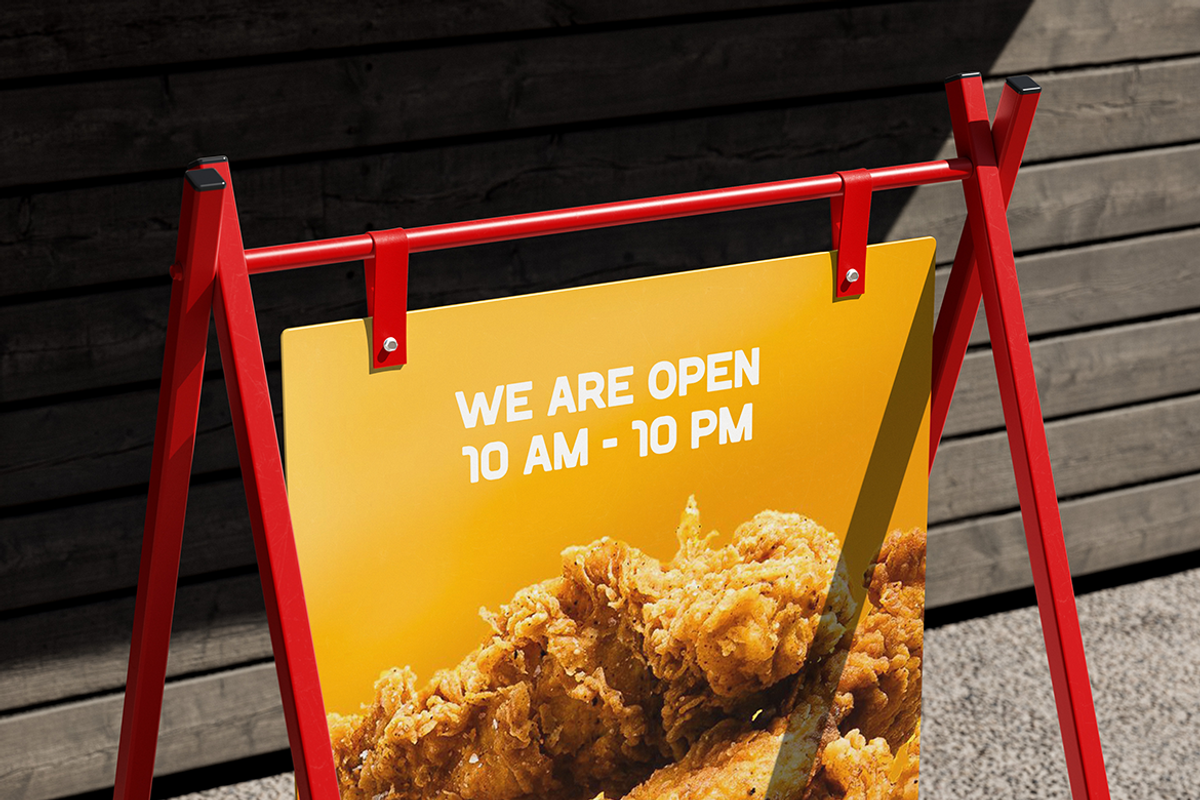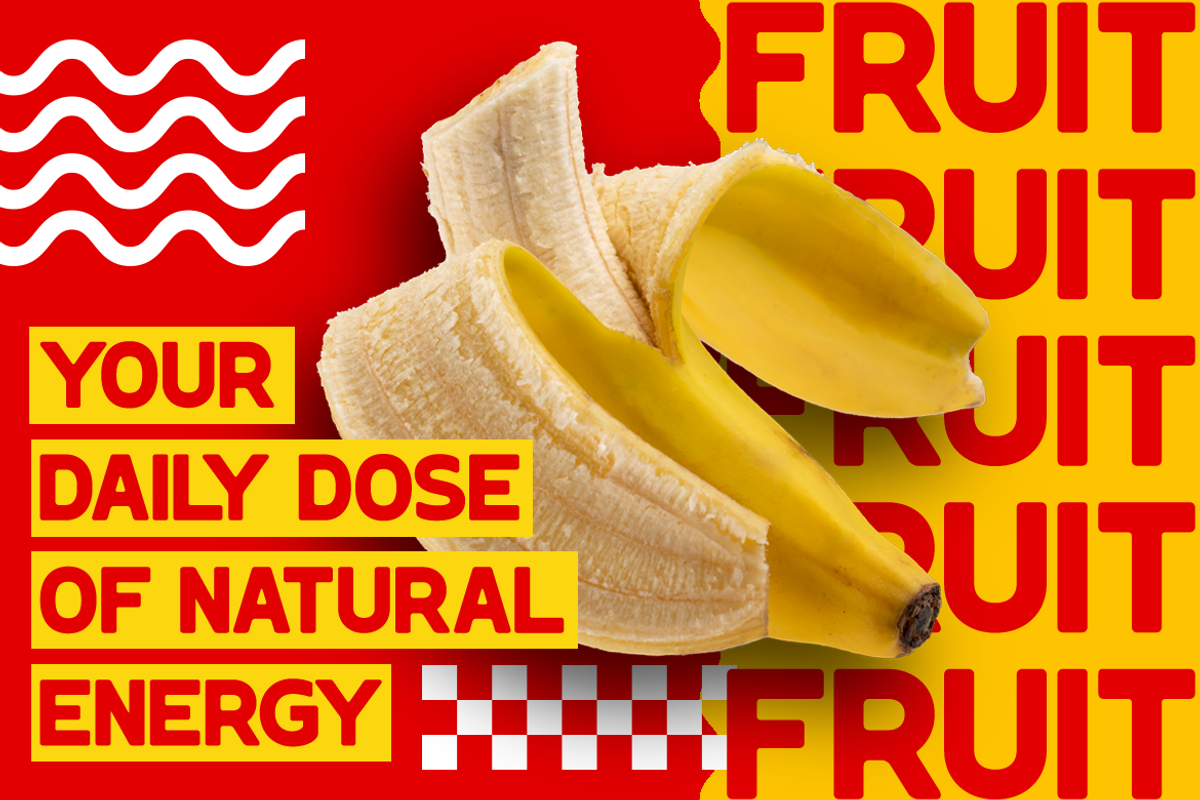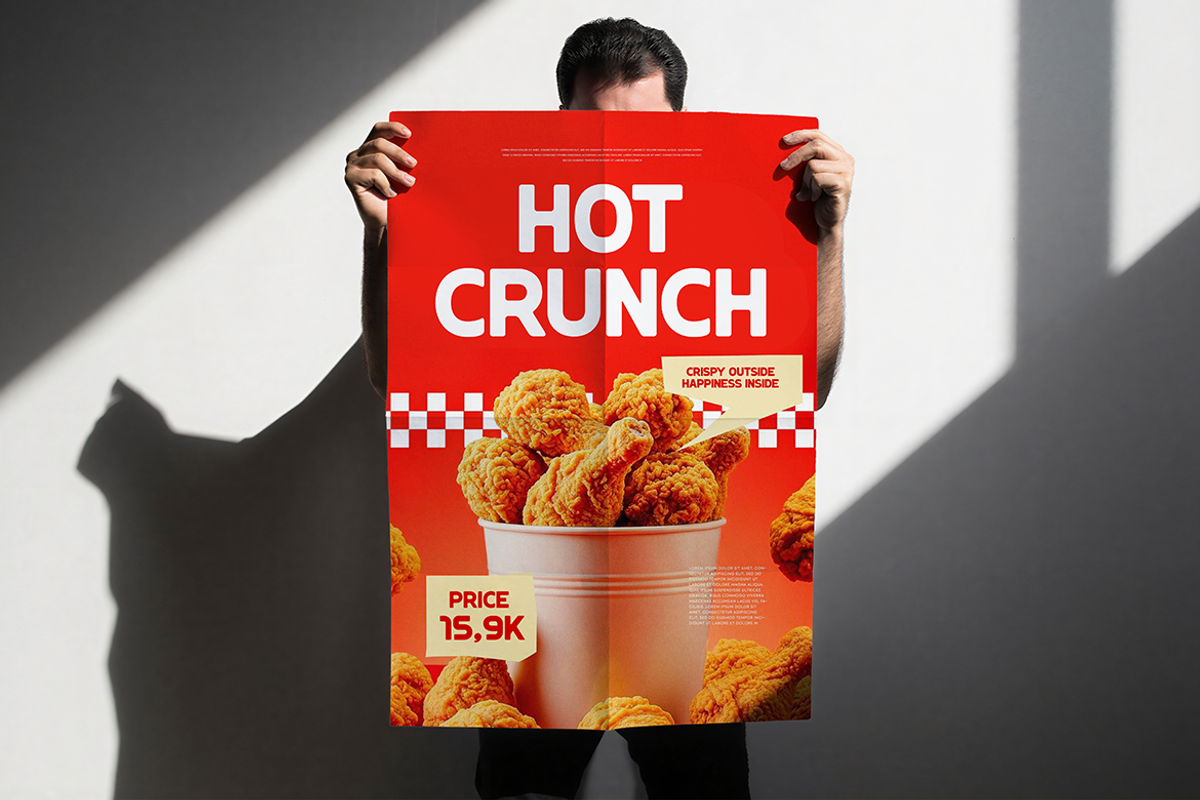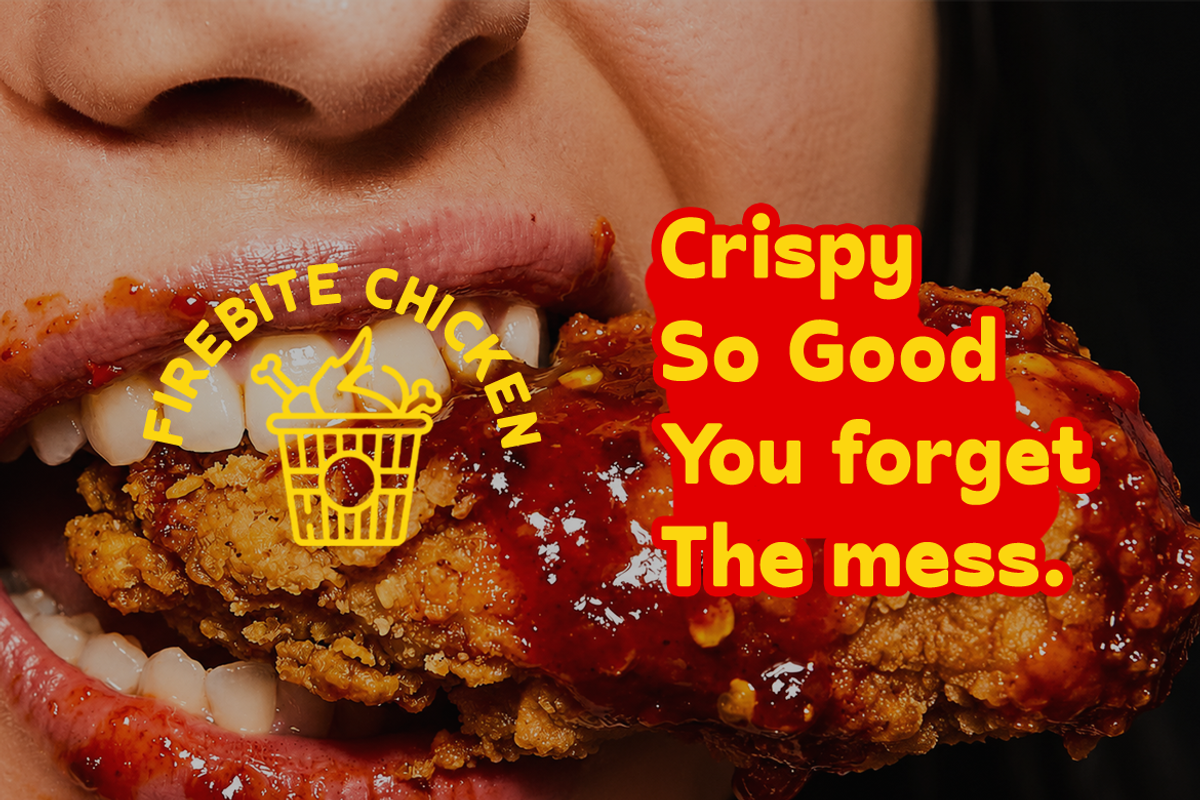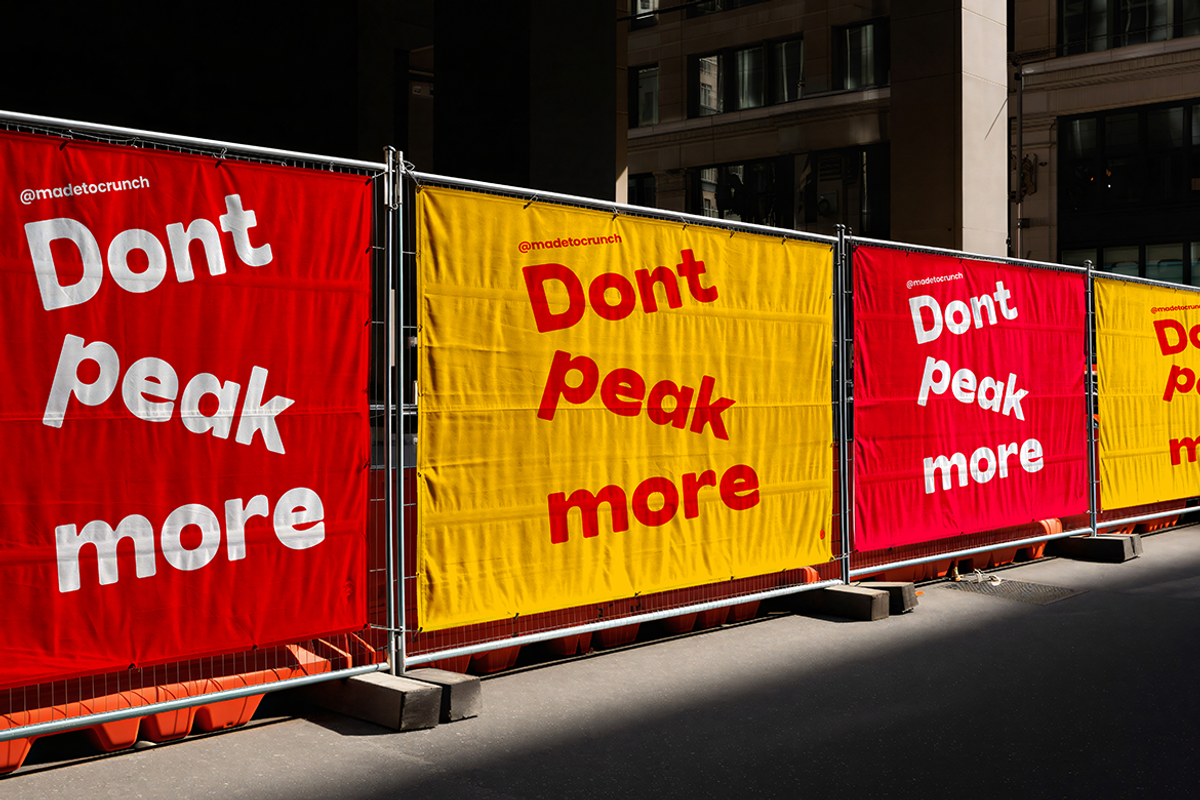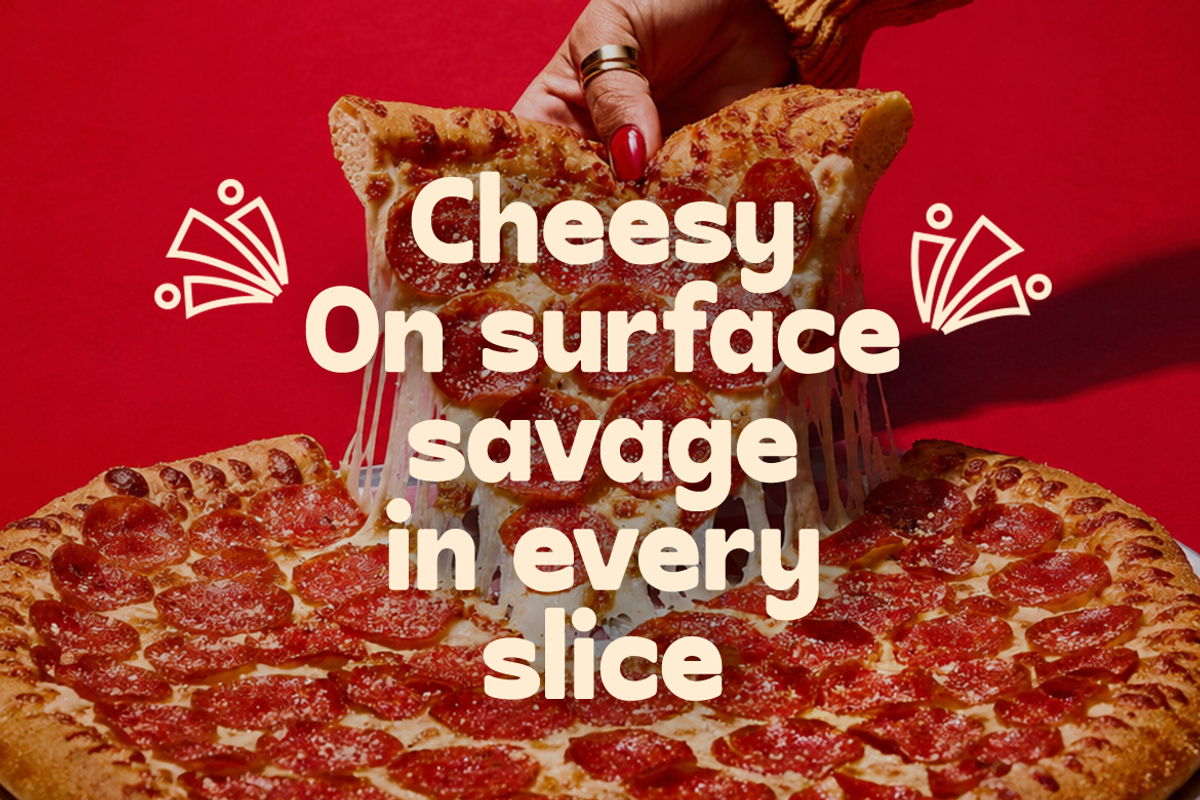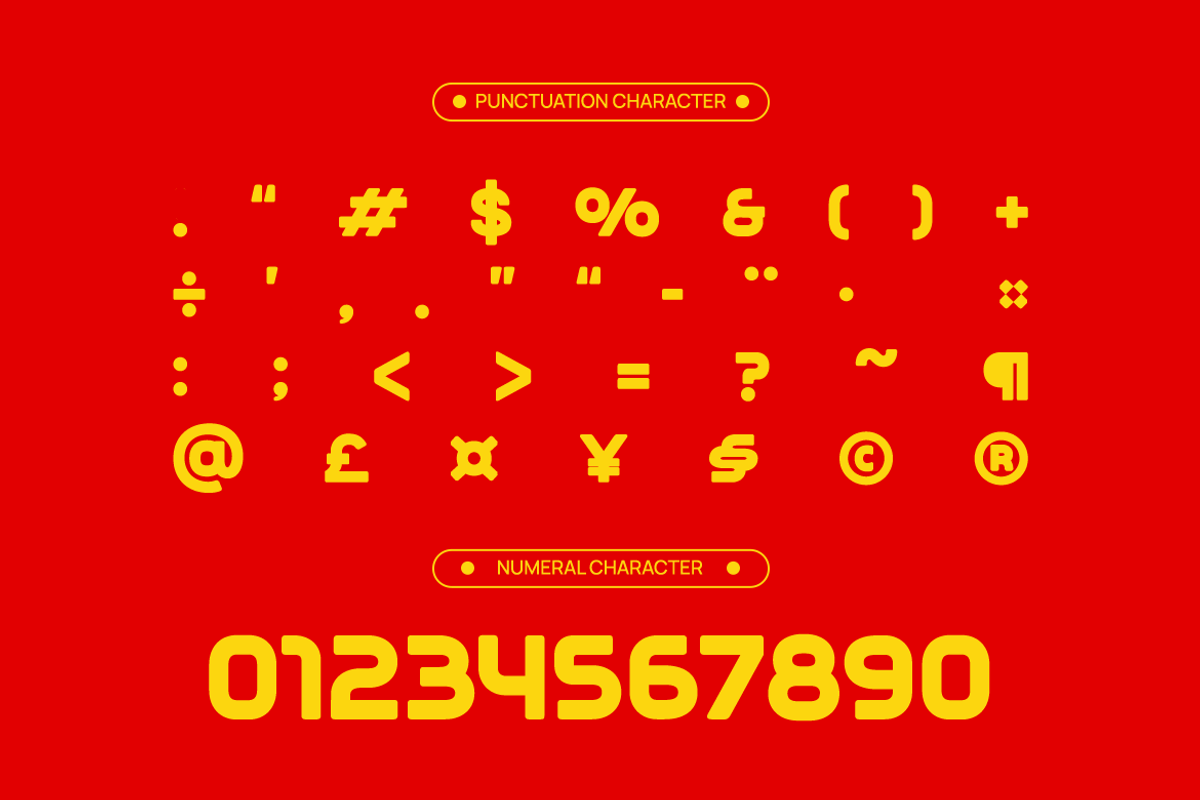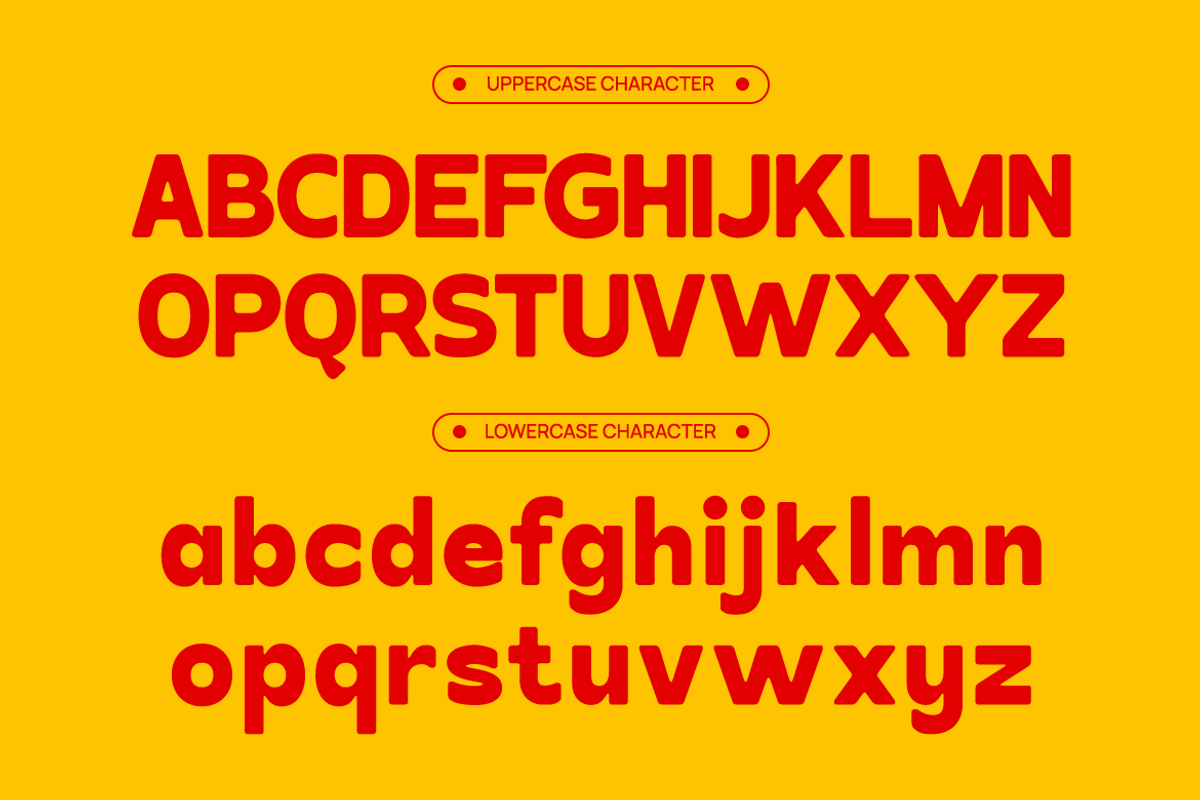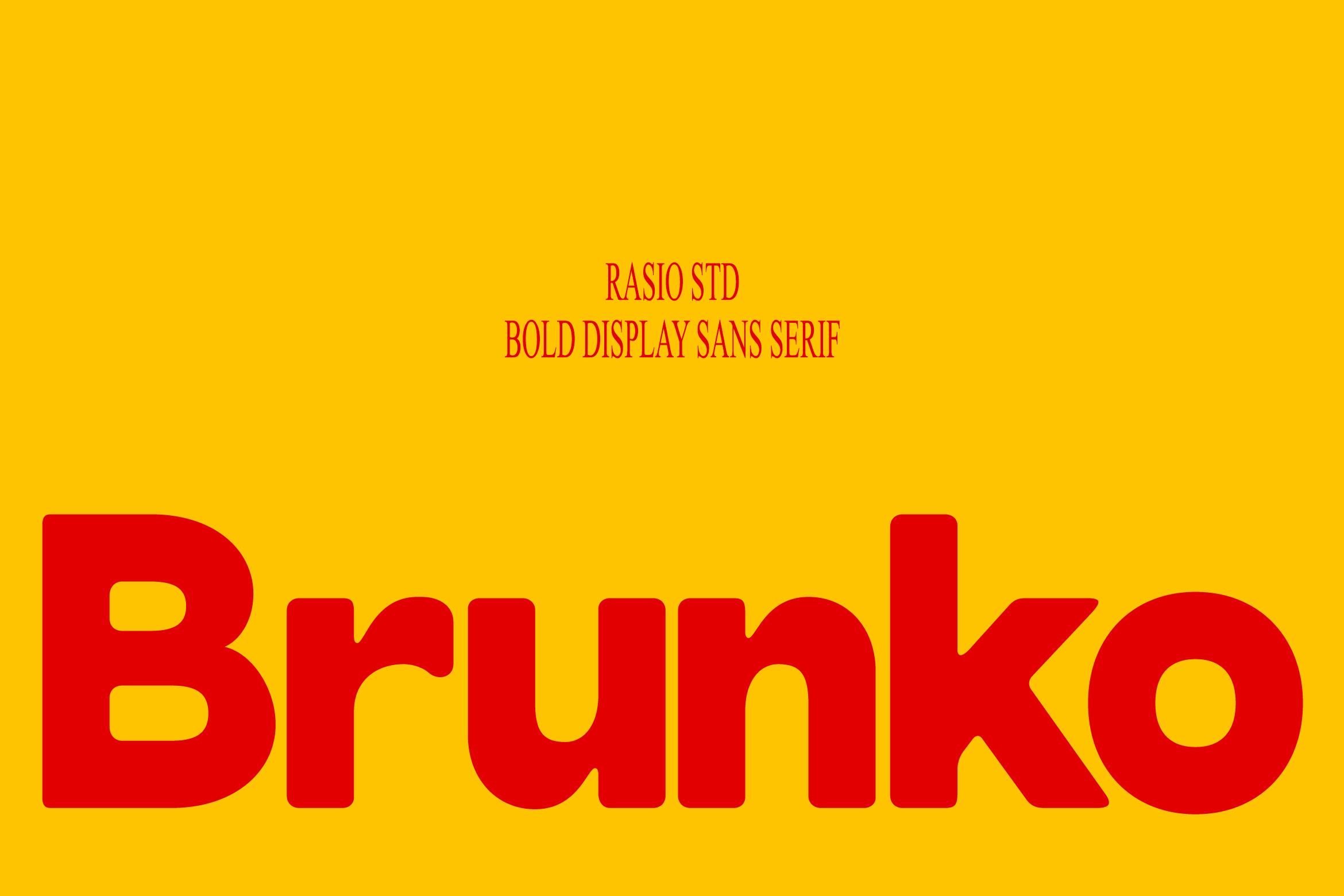
Brunko Bold Display Sans Serif Font
Brunko Bold Display Sans Serif is a heavy rounded display typeface with strong geometric construction, playful curves, and impactful letterforms designed for standout visual communication. The font includes uppercase, lowercase, numerals, punctuation, making it versatile for branding and promotional typography. Its thick sans serif style delivers a bold retro-inspired appearance with smooth edges and energetic proportions suitable for food branding, posters, packaging, and eye-catching headlines.
Relevance & Use Cases is relevant for bold branding projects, restaurant identities, fast food campaigns, poster headlines, product packaging, social media promotions, merchandise, and commercial advertising. Its thick rounded structure and energetic appearance work effectively for youth-oriented branding, snack packaging, sports graphics, festival posters, YouTube thumbnails, café menus, and colorful editorial layouts that require strong visual impact and playful character.
Bold rounded sans serif structure with playful and energetic proportions
Thick geometric letterforms designed for strong visual impact in display sizes
Soft curved corners and smooth edges for a friendly and approachable feel
Heavy weight consistency with compact spacing for powerful headline presence
Eye-catching character shapes optimized for food branding, posters
Food branding projects for restaurants, street food, and fast food campaigns
Bold poster designs, menu layouts, and promotional advertising materials
Packaging design for snacks, beverages, and playful product labels
Social media graphics and content creation with energetic visual appeal
Kids branding, fun merchandise, and youthful marketing identities
Supports numerals, punctuation, and extensive symbol set
Turn up the energy with Brunko crafted for striking headlines